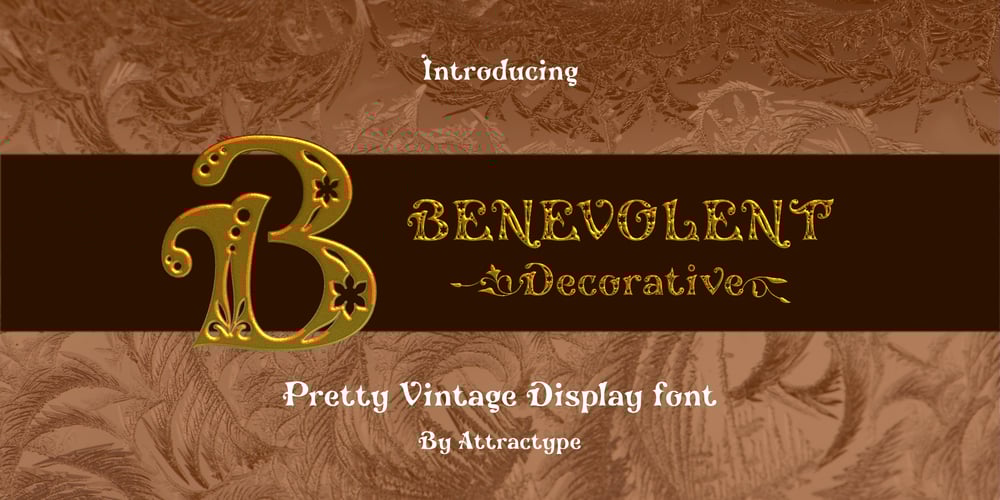
Benevolent
Benevolent font
Benevolent Font Family was designed by Saefulloh and published by Attractype. Benevolent contains 2 styles and family package options. Introducing “Benevolent” – A pretty vintage font.With a subtle touch and unique design, Benevolent is an incredibly versatile font, perfect for any type of project from invitations and posters to magazines and corporate identity.Benevolent has two styles, solid regular and decorative which are packaged separately. Each of them comes with a swash and alternative feature. Of course, Benevolent can also be applied to various arts, crafts and jewelry.Happy crafting with Benevolent.